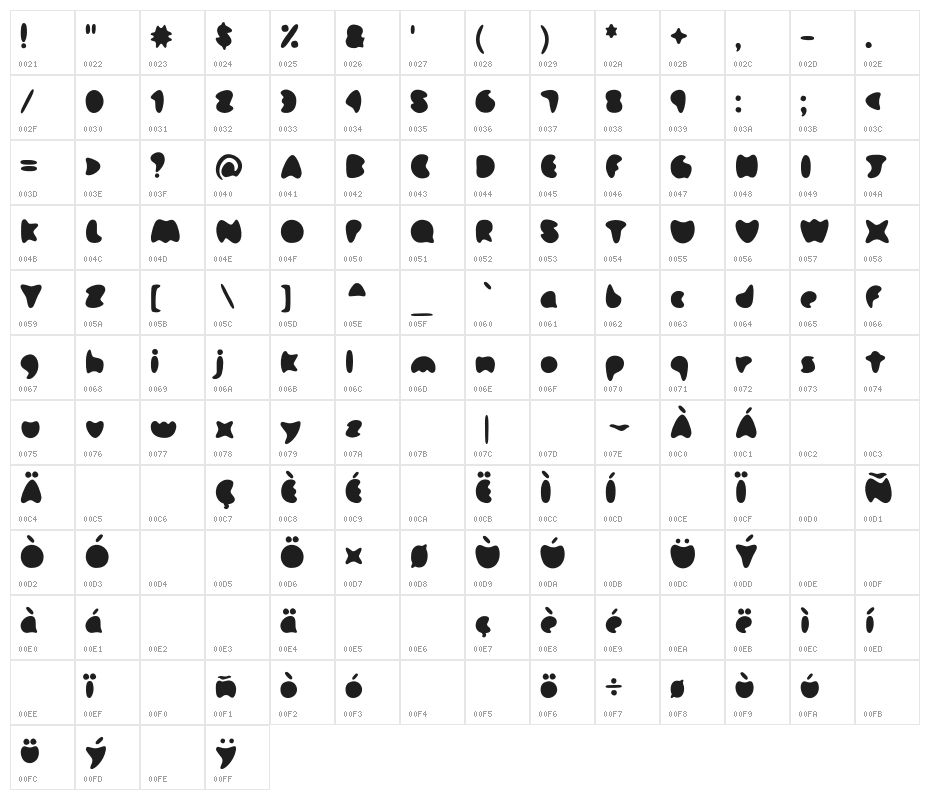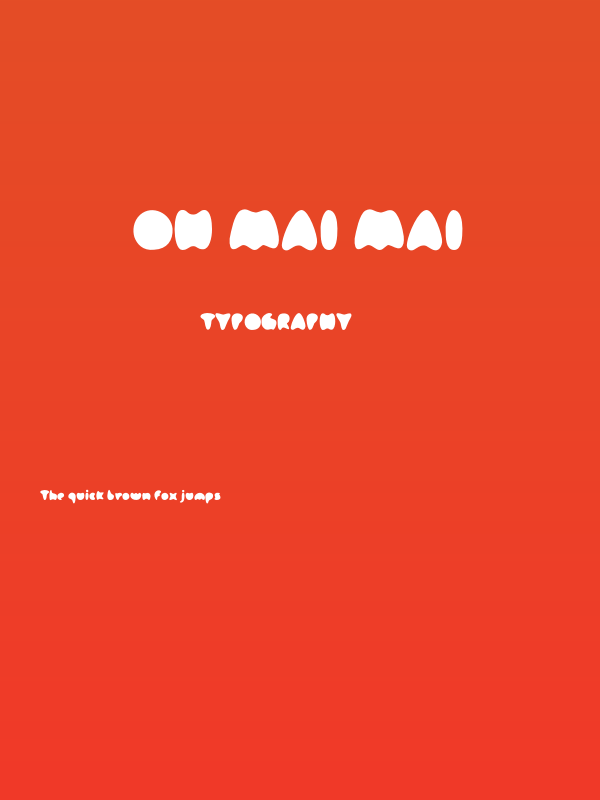
Oh Mai Mai Font
Oh Mai Mai Description
This playful and bold font features a bubbly, organic style with thick, rounded shapes that give it a whimsical and friendly appearance. The characters are highly stylized, with exaggerated curves and a soft, flowing form that creates a sense of movement and fun. The font's unique design makes it stand out, with each letter appearing almost like a playful blob, adding a touch of creativity and joy to any project. The overall look is informal and lively, making it ideal for projects that aim to convey a sense of fun and approachability.